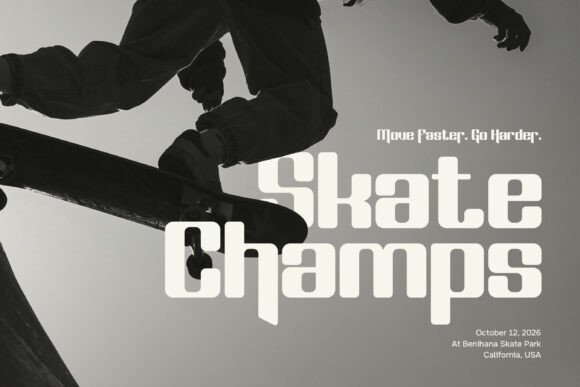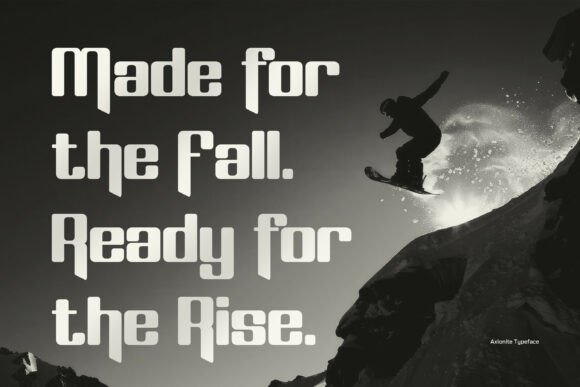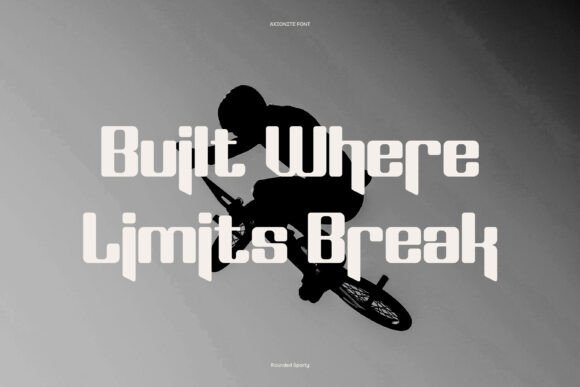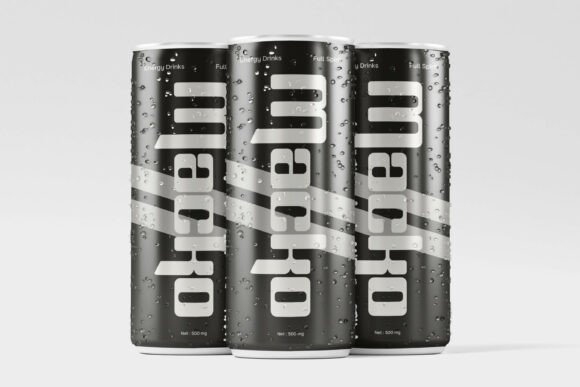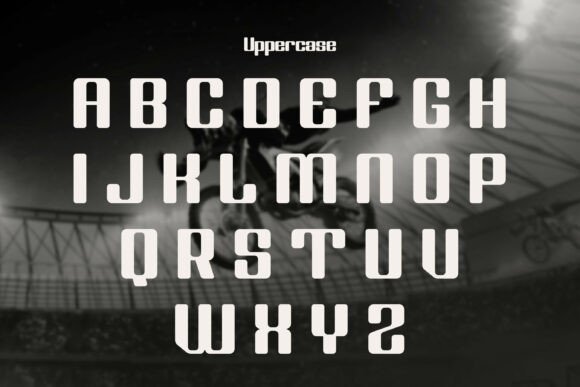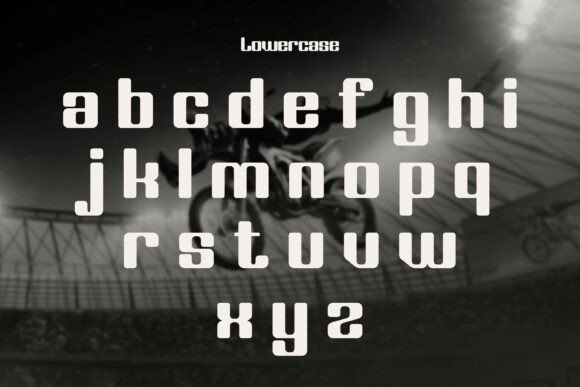
Axionite is a modern rounded sporty sans serif font built for energy, motion, and bold visual impact. Designed with smooth curves and strong geometric forms, this typeface brings a dynamic and friendly personality while maintaining a clean and professional look. Its rounded edges soften the sporty aesthetic, making it versatile for both aggressive and approachable design styles.
An Honest Review of Axionite Font
- ✨ Unique blend of sporty and friendly: Axionite’s rounded edges and geometric forms create a perfect balance between energy and approachability.
- ✅ Clean and professional look: Despite its sporty vibe, Axionite maintains a clean and professional appearance, making it suitable for a wide range of design projects.
- 💡 OpenType features and glyphs: Axionite offers a range of OpenType features, glyphs, and stylistic alternates, giving designers plenty of creative options.
⚠️ While Axionite is an excellent font, it’s not without its limitations. Some users may find that:
- 🤔 It can be too bold: Axionite’s bold personality may not be suitable for designs that require a more subtle approach.
- ⚠️ It may not work well in small sizes: Due to its geometric forms and rounded edges, Axionite may not be the best choice for body text or small font sizes.
The Designer Behind Axionite
Axionite was designed with the goal of creating a modern, sporty, and friendly font that would appeal to a wide range of designers and clients. The designer, inspired by the world of sports and motion, aimed to create a typeface that would convey energy and dynamism while maintaining a clean and professional look.
Q: What is Axionite Font best suited for?
A: Axionite Font is best suited for designs that require a bold, energetic, and modern look, such as sports branding, advertising, and editorial design.
Q: Can I use Axionite for body text?
A: While Axionite can be used for body text, it may not be the best choice due to its bold personality and geometric forms. It’s recommended to use it for headlines or titles.